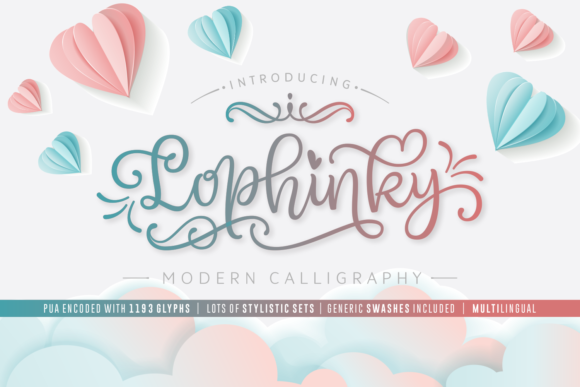
Lophinky Font
Immerse yourself in the world of Lophinky, a whimsical handwritten script font crafted by Situjuh, a visionary in the art of typography. As a creation meticulously designed with playful flourishes and an infectious personality, Lophinky is not just a font; it's an artistic gateway unlocking a realm of creativity. Enter a world where words dance with an enchanting charm, captivating your audience with its effortless grace. Lophinky beckons you to embark on a typographic adventure, inviting you to paint your thoughts with a palette of elegance and creativity.
With its undeniably captivating aura, Lophinky seamlessly blends the traditional allure of calligraphy with a refreshing modern twist. Its flowing strokes and expressive curves mimic the fluidity of a dancer's movements, adding a dynamic touch to your designs. Whether you're crafting heartfelt invitations, designing captivating logos, or adding a personal touch to your social media posts, Lophinky promises to elevate your creations with its enchanting presence.
As a versatile font, Lophinky effortlessly adapts to a myriad of creative endeavors. Its playful nature lends itself perfectly to youthful and lighthearted projects, while its inherent elegance makes it an ideal choice for formal and sophisticated designs. Experiment with Lophinky's diverse range of applications, from eye-catching posters and brochures to heartfelt wedding invitations and vibrant social media graphics. Unleash your imagination and let Lophinky transform your designs into captivating visual experiences.
The world of Lophinky is a symphony of creativity, inviting you to explore the depths of your imagination and bring forth designs that resonate with your soul. Its charming personality and boundless versatility make it the perfect companion for any creative project. As you delve into the depths of Lophinky's allure, you'll discover a font that not only captivates your audience but also fuels your creative spirit. Its endless possibilities are waiting to be unearthed, so let Lophinky guide you on a typographic journey like no other.